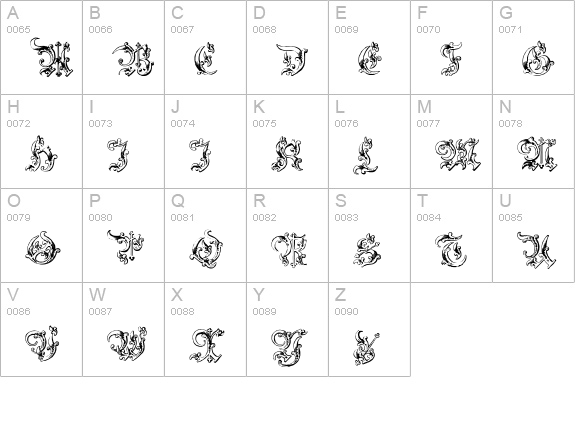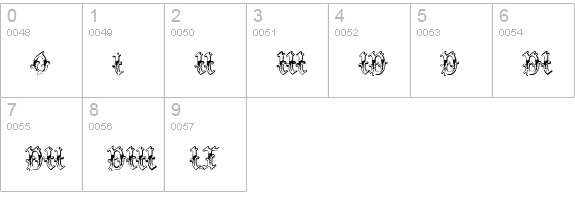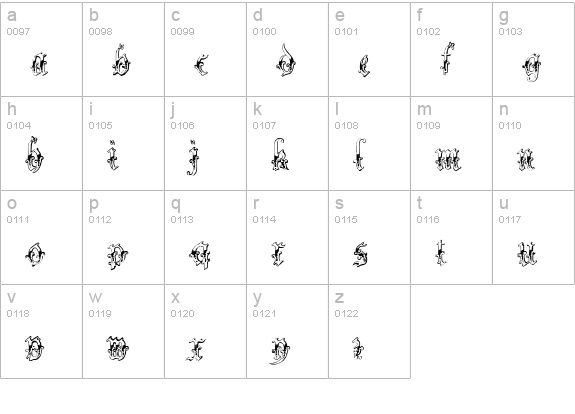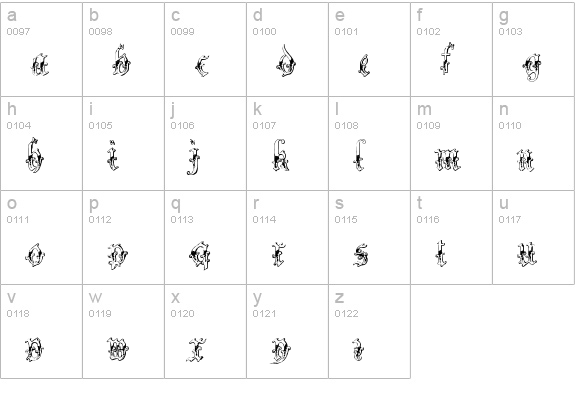
Strelsau Font Details
Introducing Strelsau font, a modern and elegant typeface designed to elevate your projects to new heights. With its sleek lines and sophisticated curves, Strelsau font exudes a sense of timeless charm and refinement. Perfect for adding a touch of class to branding, logos, invitations, and more, this versatile font is sure to make a lasting impression. What's even better is that Strelsau font is available for free download at FontsMarket.com. So you can easily incorporate this stylish font into your designs without breaking the bank. Don't miss out on the opportunity to enhance your creative endeavors with the beauty of Strelsau font. Download it today and watch your projects come to life with elegance and grace.